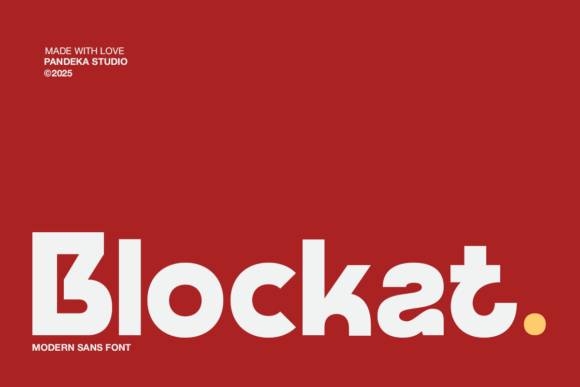
The Blockat Font: A Modern Geometric Display Typeface for Impactful Communication
What Makes Blockat Special?
Blockat is a bold and modern geometric display typeface designed for corporate identity, branding, and impactful communication. Its clean shapes and strong presence make it ideal for logos, posters, digital media, packaging, and business-oriented projects that require clarity and confidence.
• Clean and geometric design
• Strong presence and bold statement
• Ideal for corporate identity, branding, and impactful communication
• Suitable for logos, posters, digital media, packaging, and business-oriented projects
• ✨ Versatility: Blockat delivers versatility in both print and digital formats, making it a great choice for various design projects.
• ✅ Clean Design: The font’s geometric shapes and clean lines make it perfect for creating a professional and sleek look.
• 🌎 Multilingual Support: Blockat includes full multilingual support, ensuring global usability while maintaining a sleek and professional look.
While Blockat is an excellent font, there are a few things to consider: 🤔
• ⚠️ Limited Styles: Blockat currently only has one Regular style, which might limit its use in projects requiring multiple font weights.
• ⚠️ No Stylistic Alternates: Blockat does not have built-in stylistic alternates, which might limit its use in projects requiring a more creative approach.
Blockat supports OpenType features, including:
• Ligatures
• Stylistic sets
• Glyph substitution
Blockat was designed with the goal of creating a bold and modern geometric display typeface that would make a statement. The designer aimed to create a font that would be versatile, clean, and professional, with a strong presence that would work well in various design projects. The result is a font that is both sleek and confident, perfect for corporate identity, branding, and impactful communication.
Q: What is Blockat font?
A: Blockat is a bold and modern geometric display typeface designed for corporate identity, branding, and impactful communication.
Q: Is Blockat suitable for digital media?
A: Yes, Blockat is optimized for digital media, including websites, social media, and digital advertising.